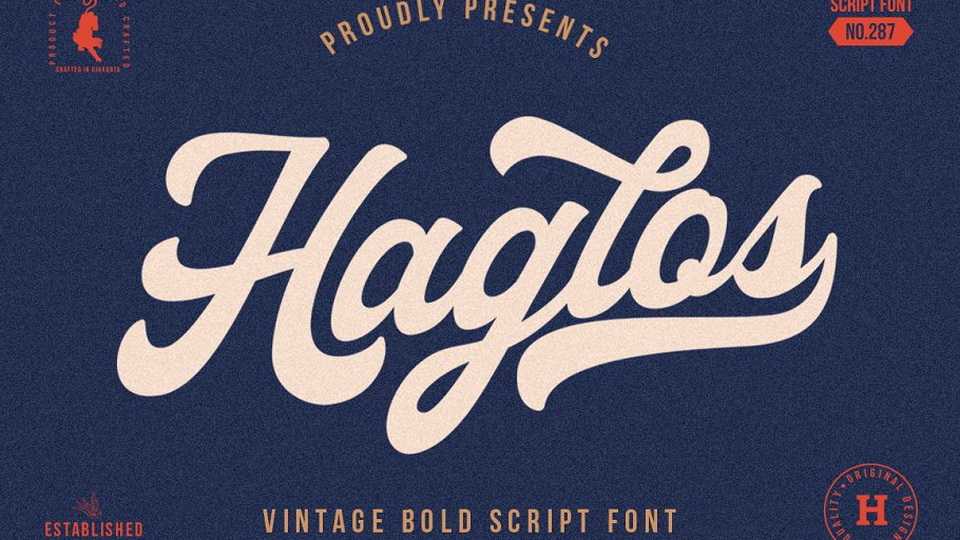
Download Haglos Script, a classy hand lettered script inspired by modern vintage & retro style and combination with old american traditional style.
Designer: Vultype Co